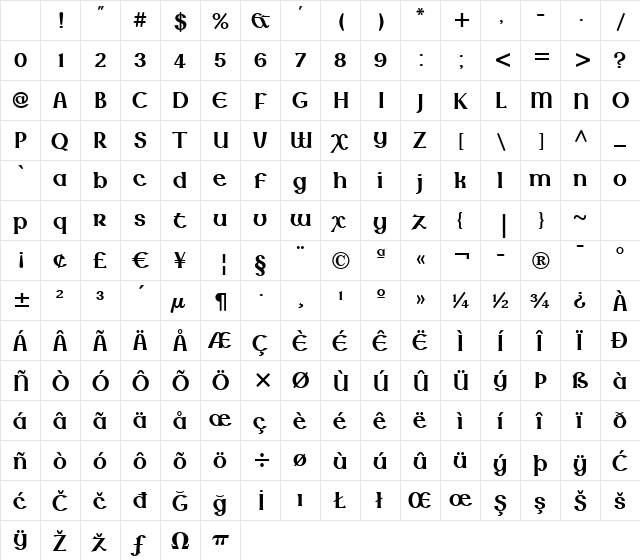
Complete Lindisfarne Nova BT Bold glyph index. Displaying only characters natively supported by Lindisfarne Nova BT Bold font.
Lindisfarne Nova BT is a composed and adaptable typeface that performs quietly and consistently across a wide range of design contexts. Its bold stroke weight gives it real presence on the page.